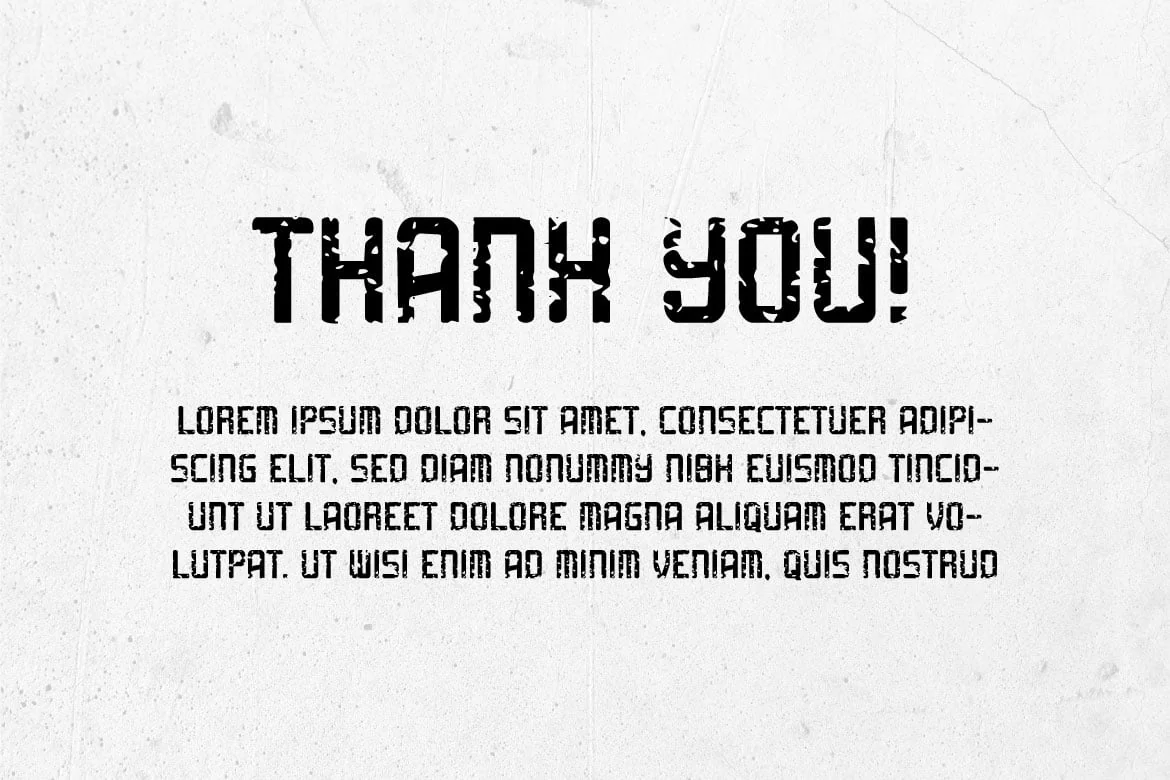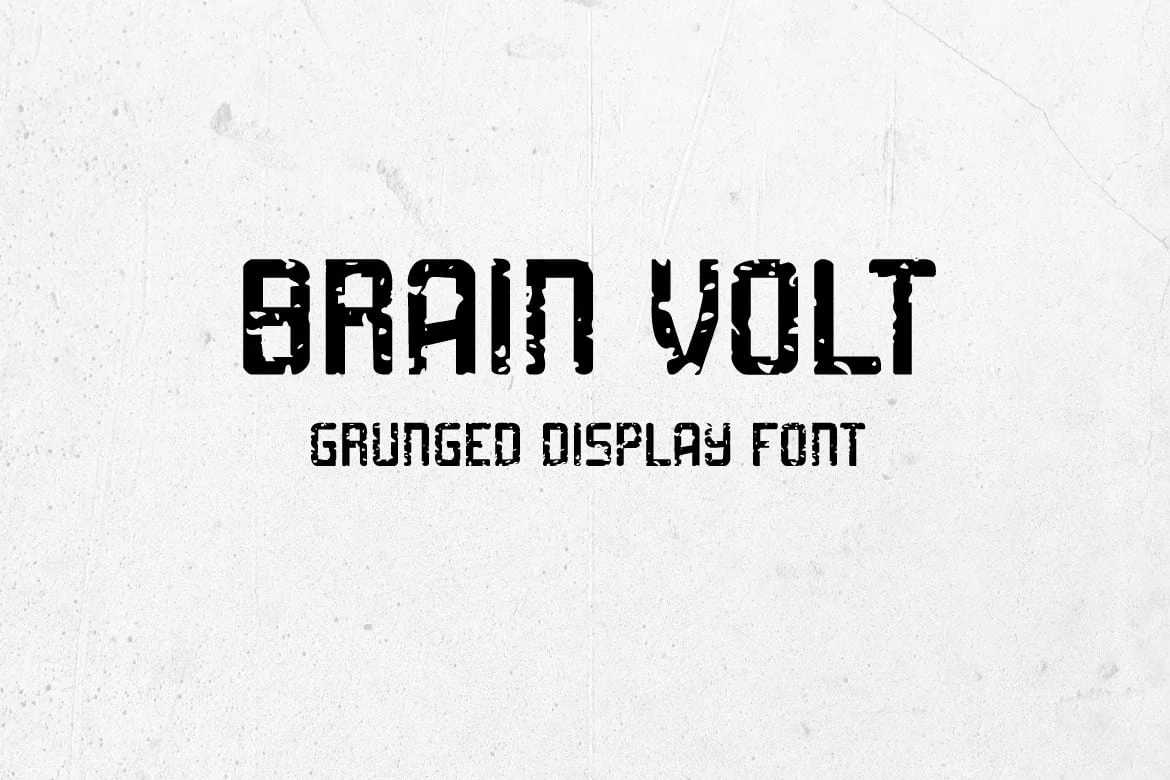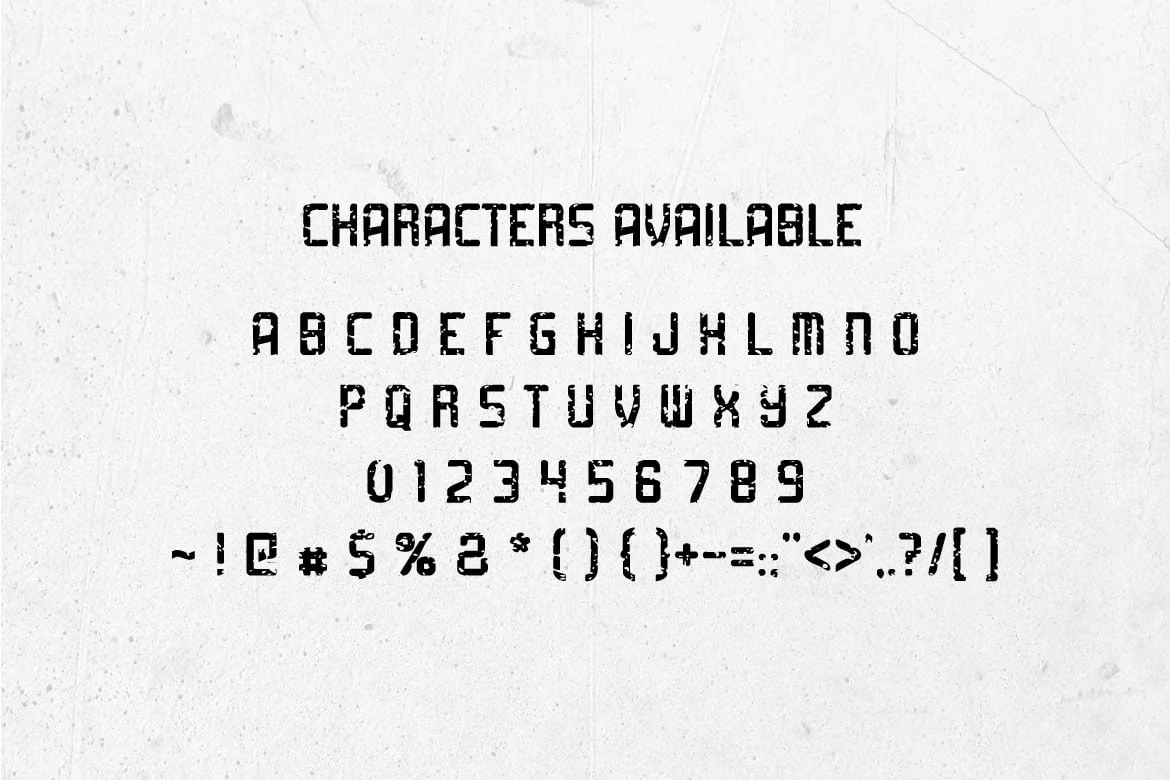
Brain volt – Grunged display font
If you are looking for a grunged display font, meet BRAIN VOLT
Brain volt is perfect for any works, such asBand poster, card, book title, headline of news, banner, flyer, stationery and many more. It also can be used in Any scale work.